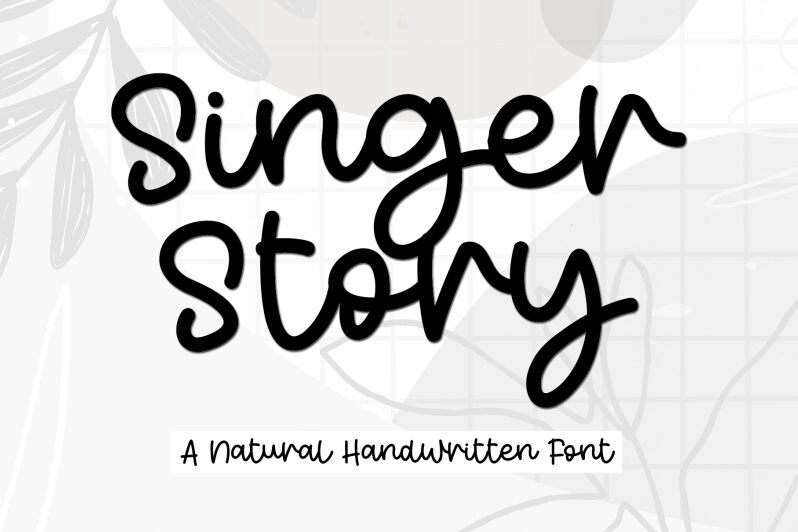
Singer Story font by Letterafa Studio is a free handwritten font with a modern feel. The letters are casual, approachable, relaxed, and friendly. They form a font that appropriately fits into personal projects and design work in need of an informal touch. Handwritten to look natural and genuine, it would feel very personal when its letters are structured into words and sentences.
The font is the perfect match for personal projects, social media graphics, and informal branding. It also works perfectly for advertisements, invitations, website visuals, and email marketing. The flow of Singer Story font also makes sending out personal messages, and even signature-style texts, possible.